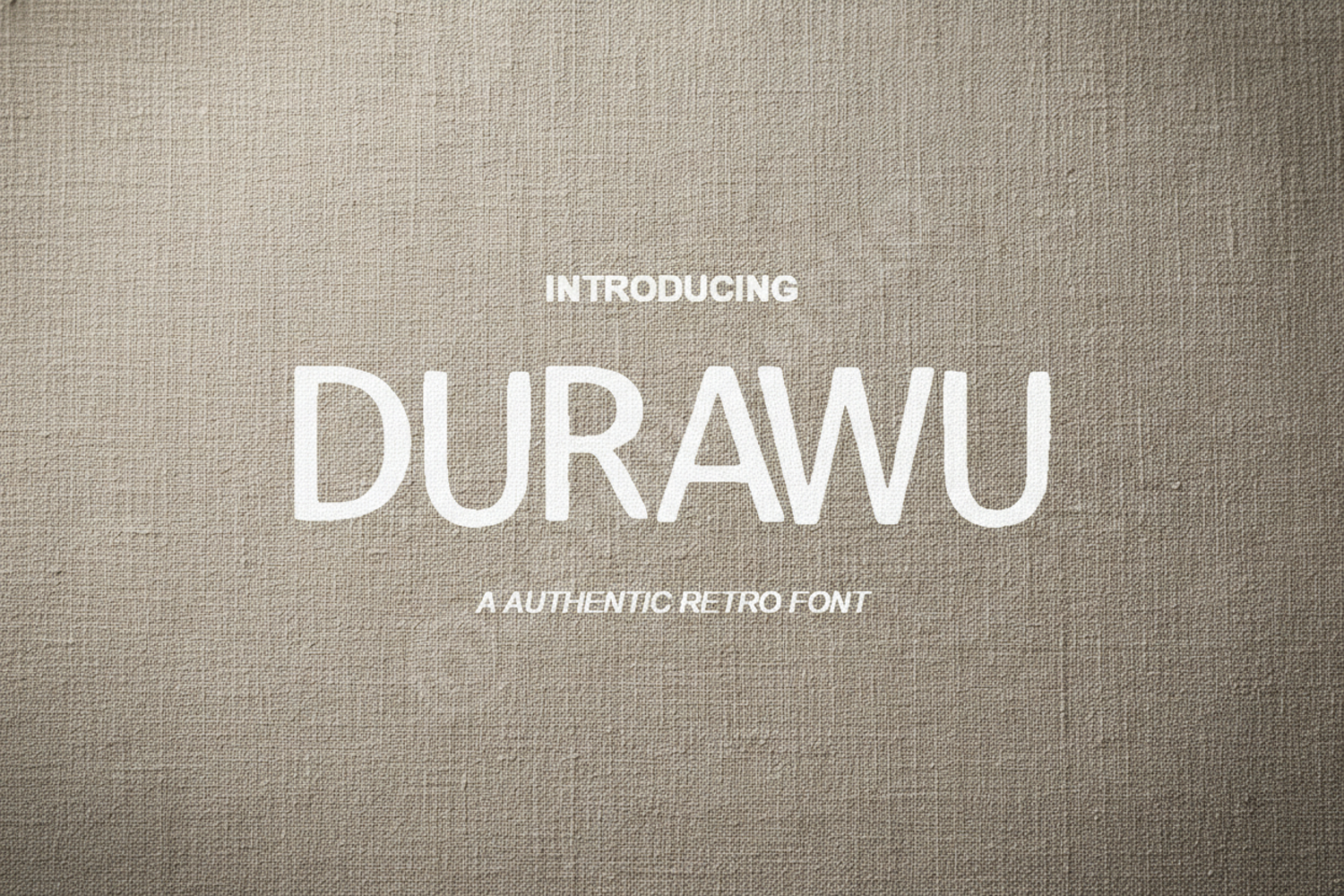
Durawu - Sophisticated Modern Serif Typeface
Durawu
Elevate your design projects with Durawu, a sophisticated serif font that blends classic elegance with modern flair. Meticulously crafted for high-end aesthetics, Durawu features clean lines, balanced proportions, and a touch of luxury that makes it stand out in any composition. Whether you are working on a premium brand identity or a minimalist editorial layout, this font provides the versatility and professional polish your work deserves.
- Luxury Branding and Identity Systems
- Elegant Wedding Invitations and Stationery
- High-End Editorial and Magazine Layouts
- Sophisticated Logo Designs
- Professional Social Media Content
- Modern Website Headers and Typography